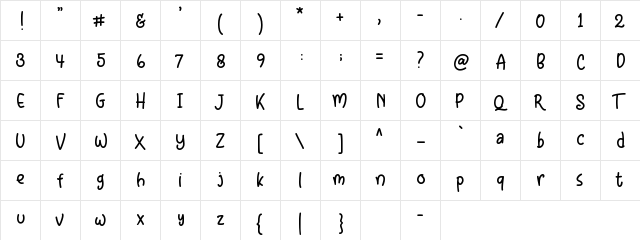
Little Clusters Reg Demo Regular Font Preview
Little Clusters Reg Demo Regular
Design Context for Little Clusters Reg Demo Typeface
Little Clusters Reg Demo is a composed and adaptable typeface that performs quietly and consistently across a wide range of design contexts.
Pro Tip: Use Little Clusters Reg Demo in both headline and body roles to test its range before committing to a single application.